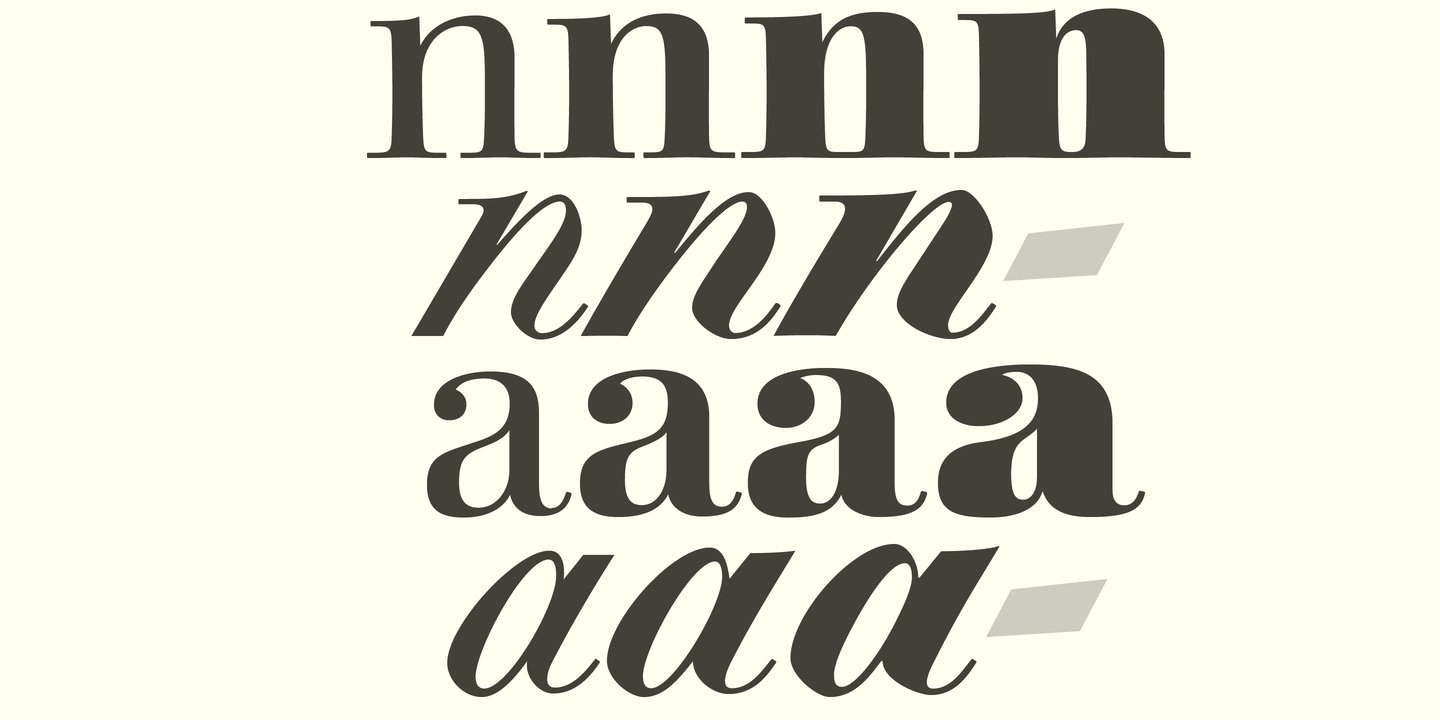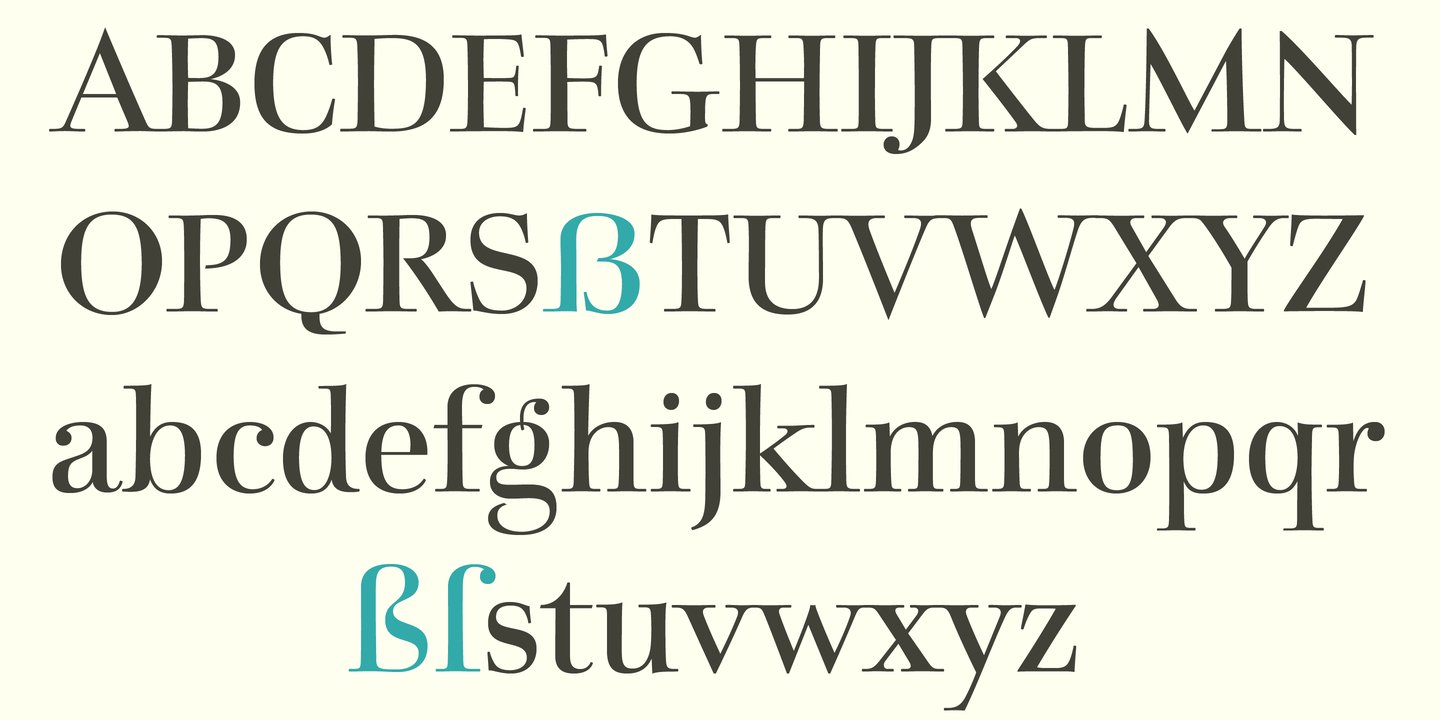
An unconventional classicistic Roman typeface
This Roman typeface has a livelier effect than is typical of the epoch of classicistic style. In the lower case letters, an echo of the smoother forms of historically early scripts is identifiable. Typical of a classicistic Roman typeface are the emphasized and clear contrast in the weight of the strokes, the fine serifs and the accentuation of the vertical bold stem. Charpentier Classicistique is pleasantly legible. Its effect is much less harsh than other classicistic fonts. The pointed forms of M and N are uncommon.
At 30°, the italic version of Charpentier Classicistique is unusually strongly slanted. The italic lower case letters refer, in part, to English handwriting, which also falls under classicism. Especially the curves show forms influenced by writing.
Charpentier Classicistique supports all European languages including Turkish, Greek and Russian. It includes lots of ligatures, also discretional ones, as well as tabular figures and cap-height figures.